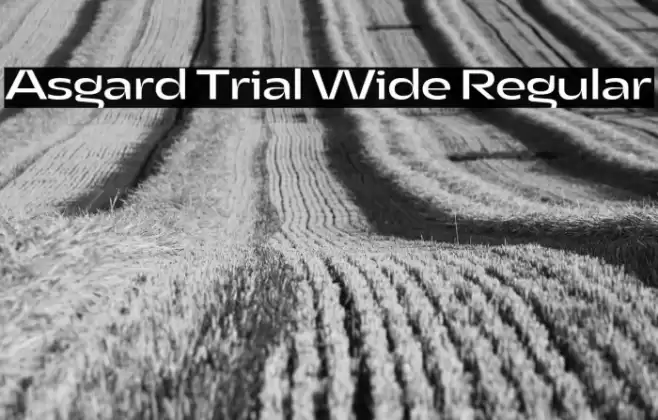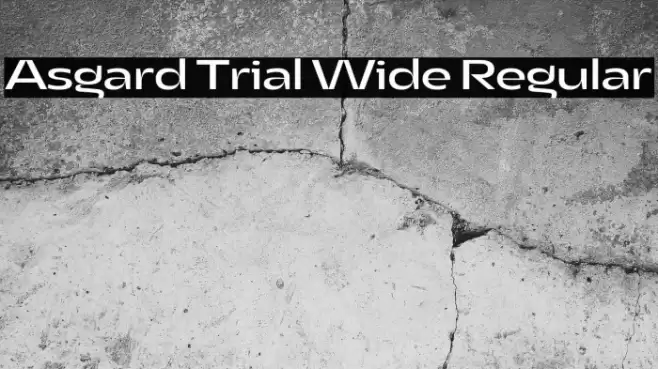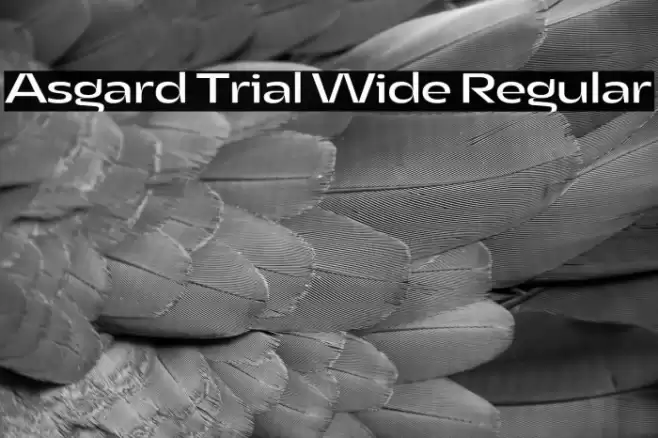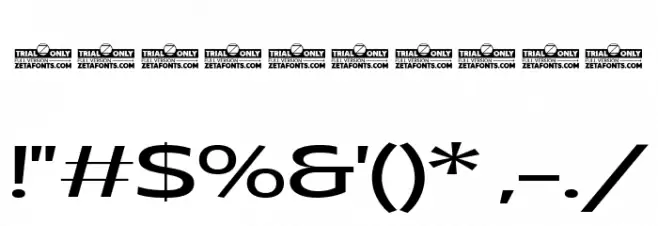
Asgard Trial Wide Regular Font
Asgard Trial Wide Regular Description
This font features a modern and sleek design with clean lines and a geometric structure. The uppercase letters are bold and assertive, while the lowercase letters maintain a consistent style with slightly softer curves. The font is characterized by its wide stance, giving it a strong presence on the page. The numerals and special characters are designed to match the overall aesthetic, ensuring a cohesive look across all text elements. The font's uniform stroke width and minimal contrast make it highly legible, suitable for various design applications.
A modern, wide, and geometric font with clean lines and minimal contrast from Regular fonts.
- Width: Expanded